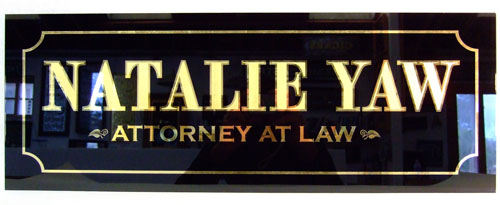
How much would you charge for this interior office door. Simple
gild with no outlines. Size= 5"x20"
I would also like to know what others would charge Mark. If the office was within ten miles from my studio, my charge for this simple gild job would be $450.
Mark,
I need a little more info.
Water or matt gilding?
On site or on a piece of glass they can hang?
on site, how far?
How were you planing to do the job? Back it up by hand? screen print the art?
If on sight is it a busy or slow location for the sign?
I would also suggest working on the art or lack of it. It's gold so it might be worth sprucing it up a bit.
Also you might think about adding a small outline. That way you could do your outline with a mask, water guild the insides , back up the gold , clean, varnish and go home.
If at all possible sell it on a glass panel they can hang in the window. That way you can do it the shop.
I too would use a mask, outline, gild, backup but I would add collect then go home.
I consider a plain job to include some type of shade or outline which sets us apart from someone who would just put a vinyl letter on the window. Too many customers do not have the appreciation for the gold itself as a quality product and have to be lead there. Some cannot tell the difference between gold and vinyl. Just look at the lack of knowledge of quality and its value in the era of discount store buying.
Price in our area $625 in town.
Customer is close by. I think too much copy to
do a matte center though. This would be a screen
print job. My thinking is I would do a translucent
enamel ink outline which would double as a backup
for the gold also.
You are right Kent not many people don't appreciate the
true gold leaf affair. It is up to us to sell them on
the difference by the way of samples. Recently I
bought some Signgold's burnished gold for doing
glass. This stuff is a JOKE! Glad I have it though
as now I can show the customer the difference.
Can't wait for _ Dave's gold leaf applicator to
come in.
I don't think that SignGold is a total joke. It has its place for economy...at least it is real gold...and it helps us point out how much better the real thing is.
I agree that the company name is fairly busy for a matte center, although that might make it more legible. The matte size could be put down with a mask with triple cut, then outline, then water gild, backup and run...with the payment.